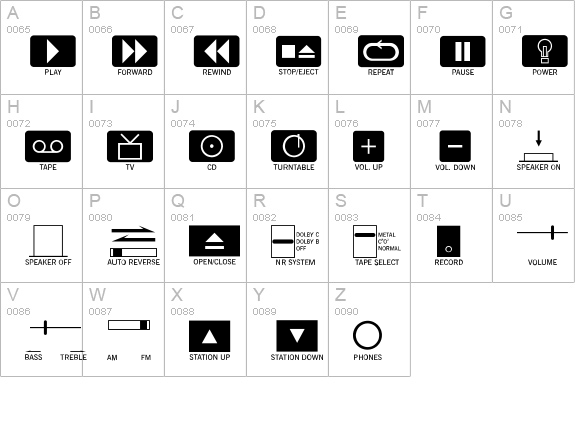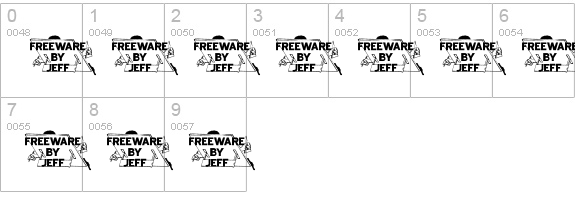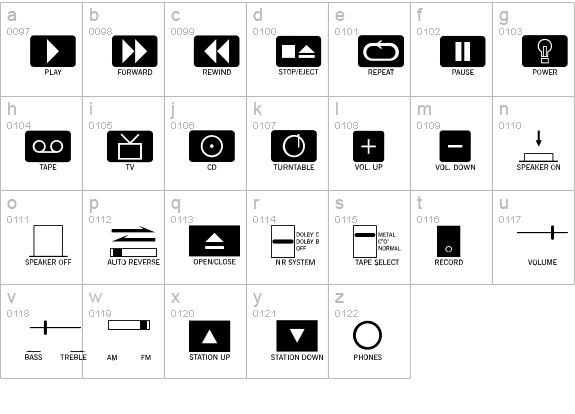
Buttons and Switches JL font is a visually appealing and versatile typeface that is perfect for adding a touch of modernity and style to your designs. This font features a unique combination of bold lines and sleek curves, making it suitable for a wide range of projects, from branding to web design. With its clean and crisp appearance, Buttons and Switches JL font exudes a sense of sophistication and professionalism. Whether you are creating a logo, poster, or website, this font is sure to make your text stand out and leave a lasting impression on your audience. Best of all, Buttons and Switches JL font is available for free download at FontsMarket.com. So you can easily access this high-quality font and use it in your projects without any cost. Don't miss out on the opportunity to enhance your designs with this stunning typeface. Download Buttons and Switches JL font today and take your creations to the next level!